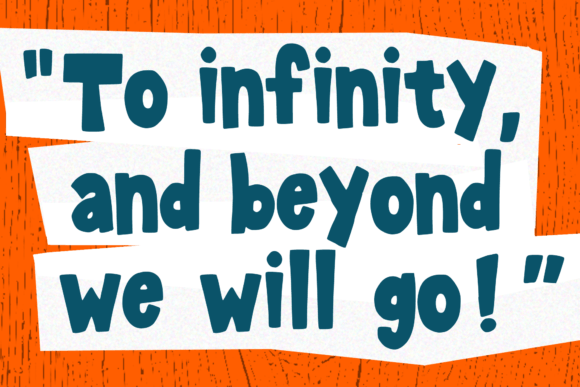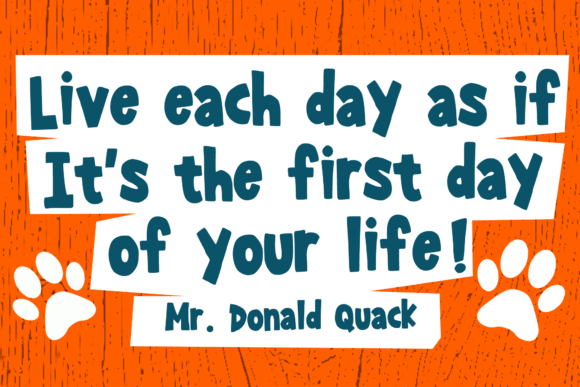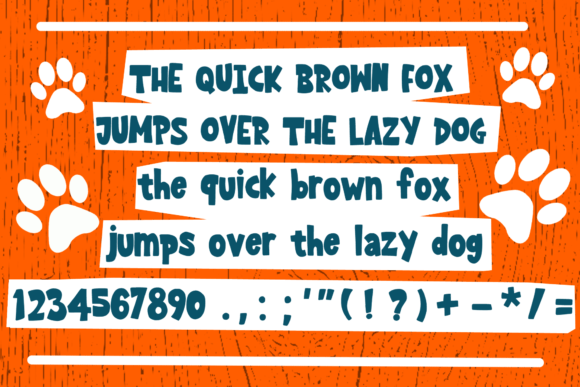
Barking Doggy Font: Unleash Fun and Creativity in Your Designs
Are you tired of using the same old fonts in your designs? Look no further! Introducing the Barking Doggy Font, a cool and fun handwritten display font that’s sure to add a playful touch to your projects. Whether you’re a designer, crafter, or simply someone who loves to get creative, this font is perfect for anyone looking to add some personality to their work.
What is Barking Doggy Font?
Barking Doggy Font is a unique and eye-catching handwritten display font that’s designed to bring a smile to people’s faces. Its playful and fun style makes it perfect for a wide range of projects, from birthday cards and posters to mugs and t-shirt designs. With its bold and quirky letters, this font is sure to grab attention and make your designs stand out.
Uses for Barking Doggy Font
The possibilities are endless when it comes to using Barking Doggy Font! Here are just a few ideas to get you started:
- Mugs: Add a fun and playful touch to your mug designs with Barking Doggy Font. Perfect for coffee, tea, or hot chocolate lovers!
- T-shirt designs: Create eye-catching and humorous t-shirt designs that are sure to turn heads.
- Posters: Use Barking Doggy Font to create bold and colorful posters for events, promotions, or simply to decorate your walls.
- Stickers: Design fun and quirky stickers that are perfect for laptops, water bottles, or any other surface.
- Greeting cards: Add a personal touch to your greeting cards with Barking Doggy Font. Perfect for birthdays, holidays, or just because!
Why Choose Barking Doggy Font?
So why choose Barking Doggy Font over other fonts? Here are just a few reasons:
- Unique style: Barking Doggy Font has a one-of-a-kind style that’s sure to make your designs stand out.
- Easy to use: This font is easy to read and use, making it perfect for designers of all skill levels.
- Versatile: Barking Doggy Font can be used for a wide range of projects, from fun and playful designs to more serious and professional ones.
- High-quality: This font is designed to be high-quality and crisp, ensuring that your designs look professional and polished.
Tips for Using Barking Doggy Font
Here are a few tips for using Barking Doggy Font to get the most out of your designs:
- Experiment with colors: Try out different colors and color combinations to really make your designs pop.
- Play with sizes: Experiment with different font sizes to create visual interest and hierarchy in your designs.
- Add graphics: Consider adding graphics or illustrations to your designs to really make them stand out.
- Keep it simple: Don’t be afraid to keep your designs simple and clean. Sometimes, less is more!